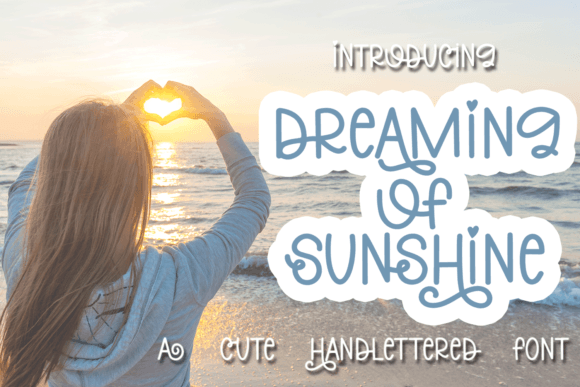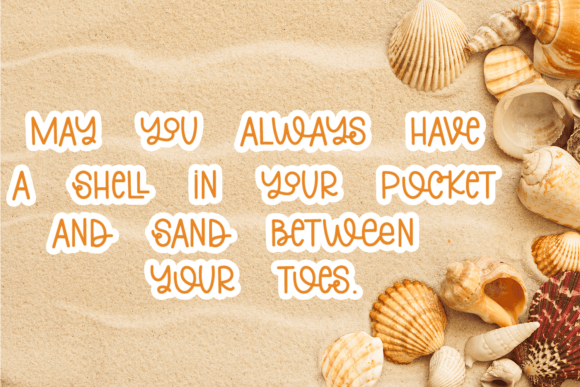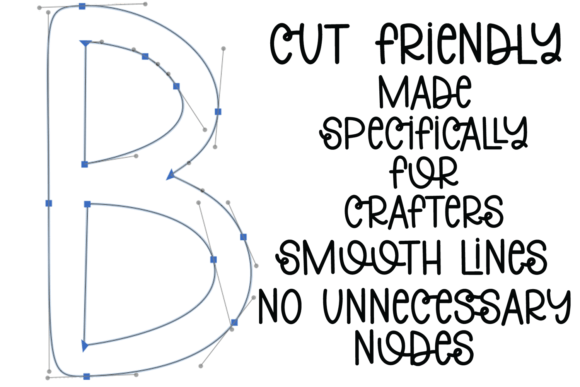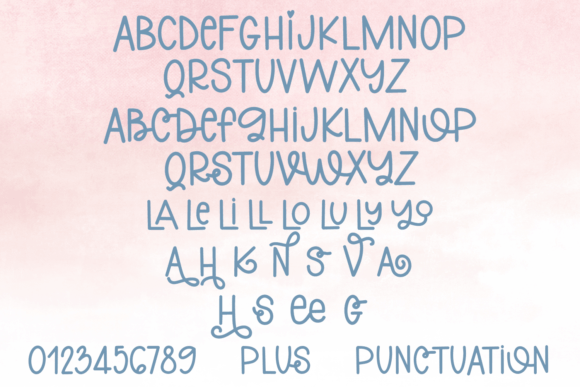
Dreaming of Sunshine Font
About the Dreaming of Sunshine Font
Step up your design game with Dreaming of Sunshine Font, a font that exudes confidence and style. Introducing Dreaming Of Sunshine, a quirky handcrafted typeface.
Dreaming Of Sunshine is perfectly suited for:
Artisanal projects using Cricut or Silhouette machines, or for enhancing your SVG design business
Distinctive logos and branding efforts
Digital planner designs and apps like Goodnotes
Website and blog designs as well as website highlights
Sleek print designs such as magazines and flyers
Header elements seeking a personalized, handwritten appeal
Motivational quote graphics for social media
Delicate graphic designs for women’s t-shirts and other clothing items
Dreaming of Sunshine Font Usage Examples
Dreaming of Sunshine Font Example